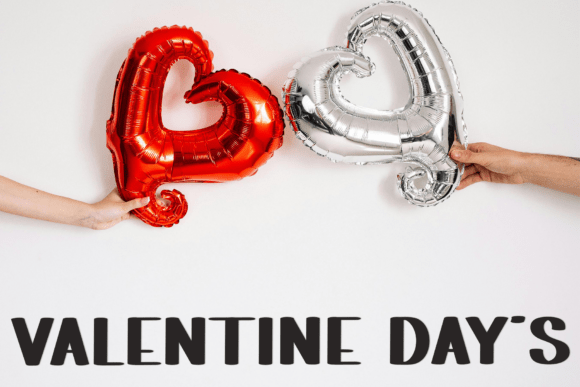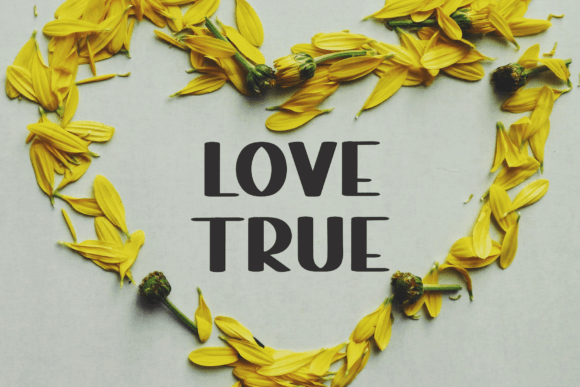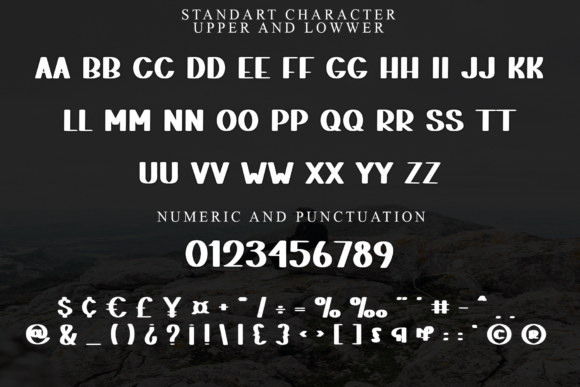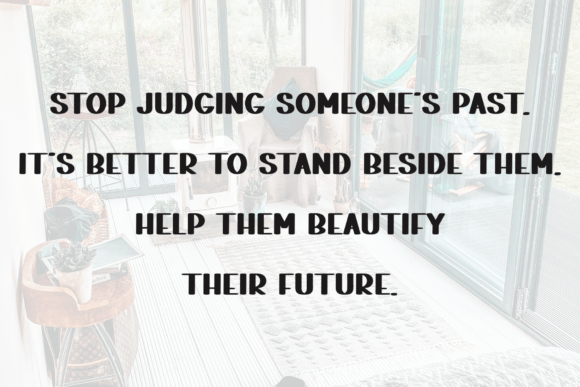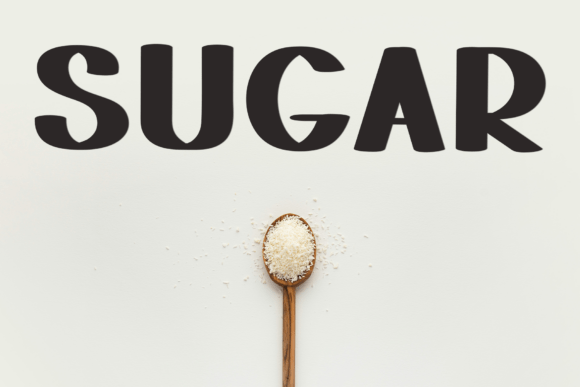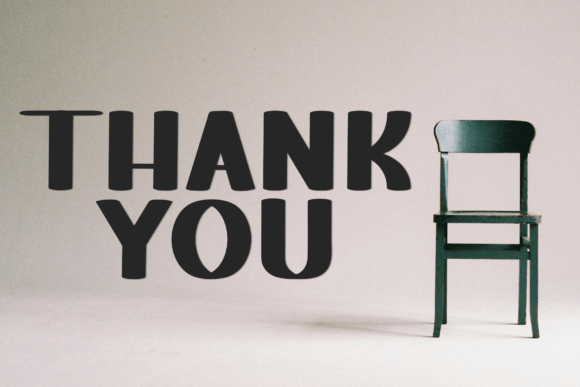
Discover the Unique Charm of Jackflash Font
Have you ever stumbled upon a font that instantly sparks creativity and inspires you to bring your ideas to life? For many designers, discovering the perfect font can be a game-changer. For me, that moment came when I stumbled upon the Jackflash Font, a beautiful and eye-catching typeface that exudes a soft, unique touch.
Designed to add a special character to any design project, the Jackflash Font is perfect for crafting unique and meaningful pieces. With its versatility and compatibility with various applications, including Windows and open-source platforms, this natural font style is ideal for a wide range of products. Whether you’re a seasoned designer or just starting out, the Jackflash Font is sure to enhance your designs and make them appealing to many audiences.
Key Features of Jackflash Font
- Font Family: Jackflash, a sans-serif font designed for digital use.
- Unique Characteristics: Features a distinctive, futuristic aesthetic with a blend of geometric and organic elements, making it ideal for designs that require a bold, modern look.
Designer Review: Jackflash Font
Overall, I think Jackflash Font is a great choice for designers looking for a modern and edgy font. Here’s what works well:
- ✨ Unique design aesthetic: Jackflash Font has a distinctive look that’s perfect for making a statement in your designs.
- ✨ Versatile: It’s great for use in headings, titles, and even body text, depending on the context.
- ✨ Strong digital display: The font looks sharp and clear on screens, making it perfect for digital projects.
- ⚠️ Limited font families: Jackflash Font is a single font family, which means you might not have as many options as you would with a more comprehensive font pack.
- ⚠️ Not ideal for small text: Due to its bold and condensed design, Jackflash Font might not be the best choice for small text sizes.
Overall, I’d give Jackflash Font 4 out of 5 stars. While it has its limitations, it’s a great choice for designers who want to add some edge to their designs. With a little creativity, you can work around its limitations and create some amazing designs.
1. Headings and titles.
2. Blog posts and articles.
3. Social media graphics and advertisements.
Experiment with different font sizes and styles to create visually appealing designs.